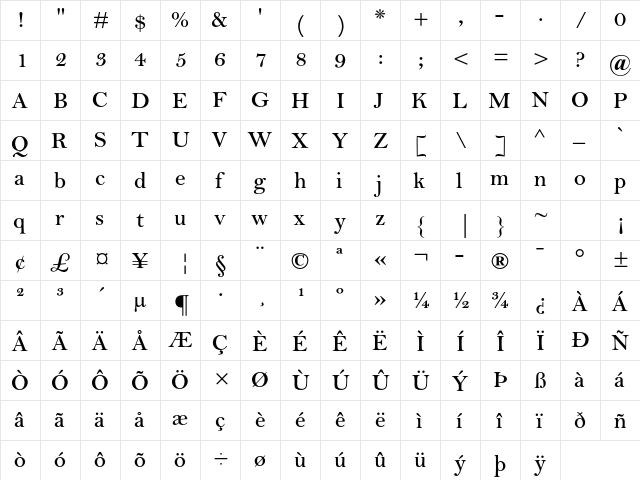
Bell MT Std Semibold Font Preview
Bell MT Std Semibold
| Designer | Richard Austin |
Design Context for Bell MT Std Typeface
Bell MT Std is a composed and adaptable typeface that performs quietly and consistently across a wide range of design contexts. The heavy weight commands attention and anchors typographic hierarchies.